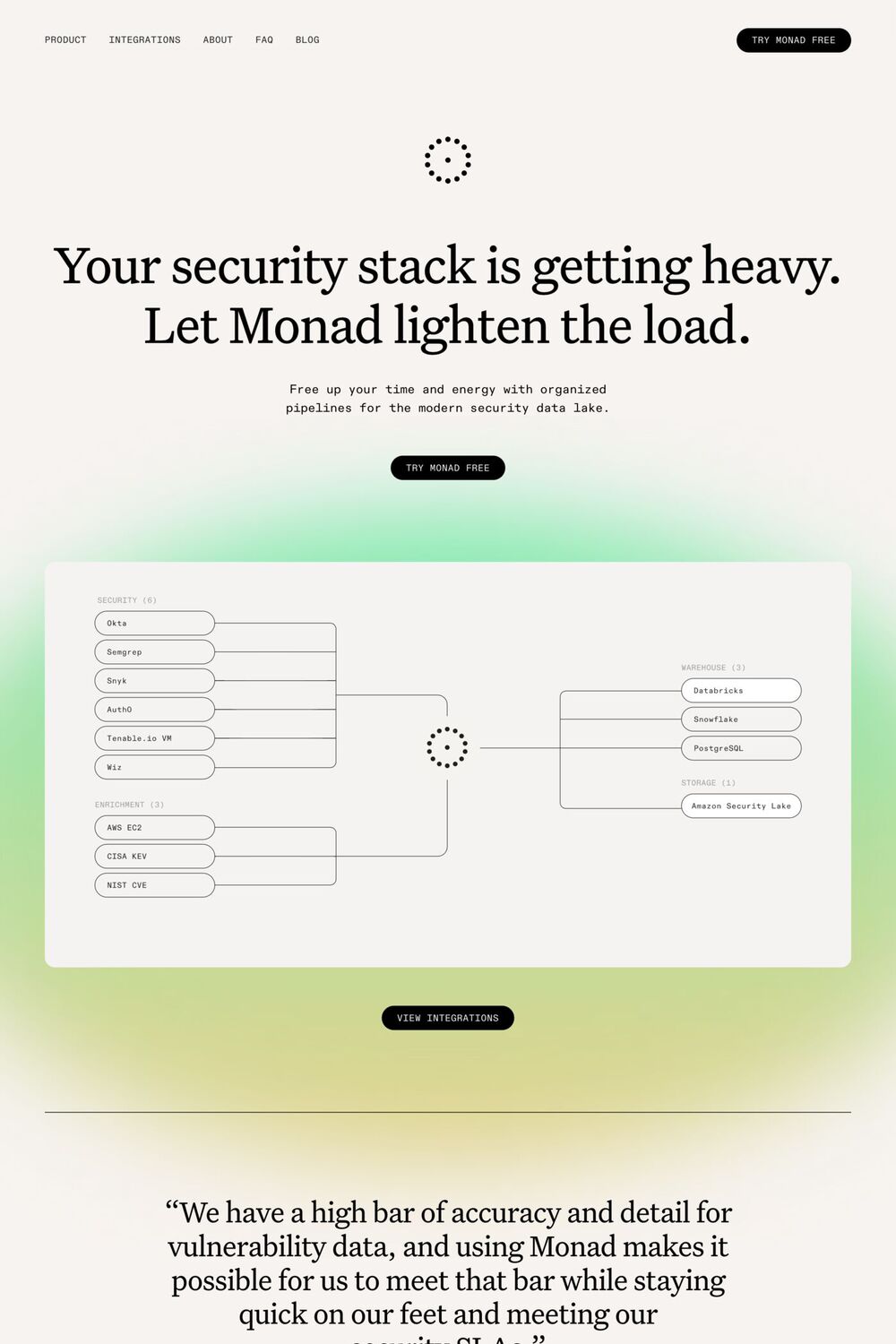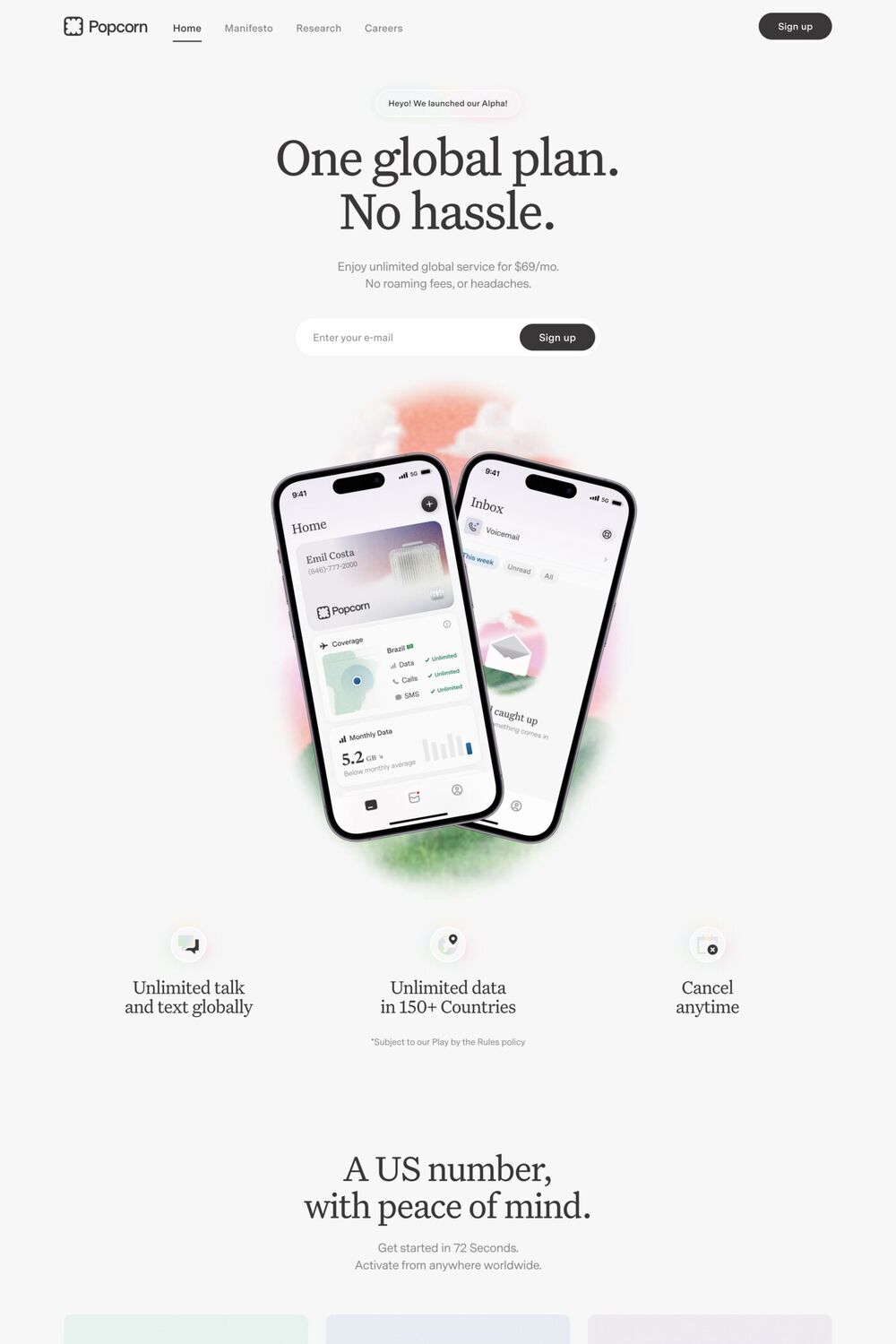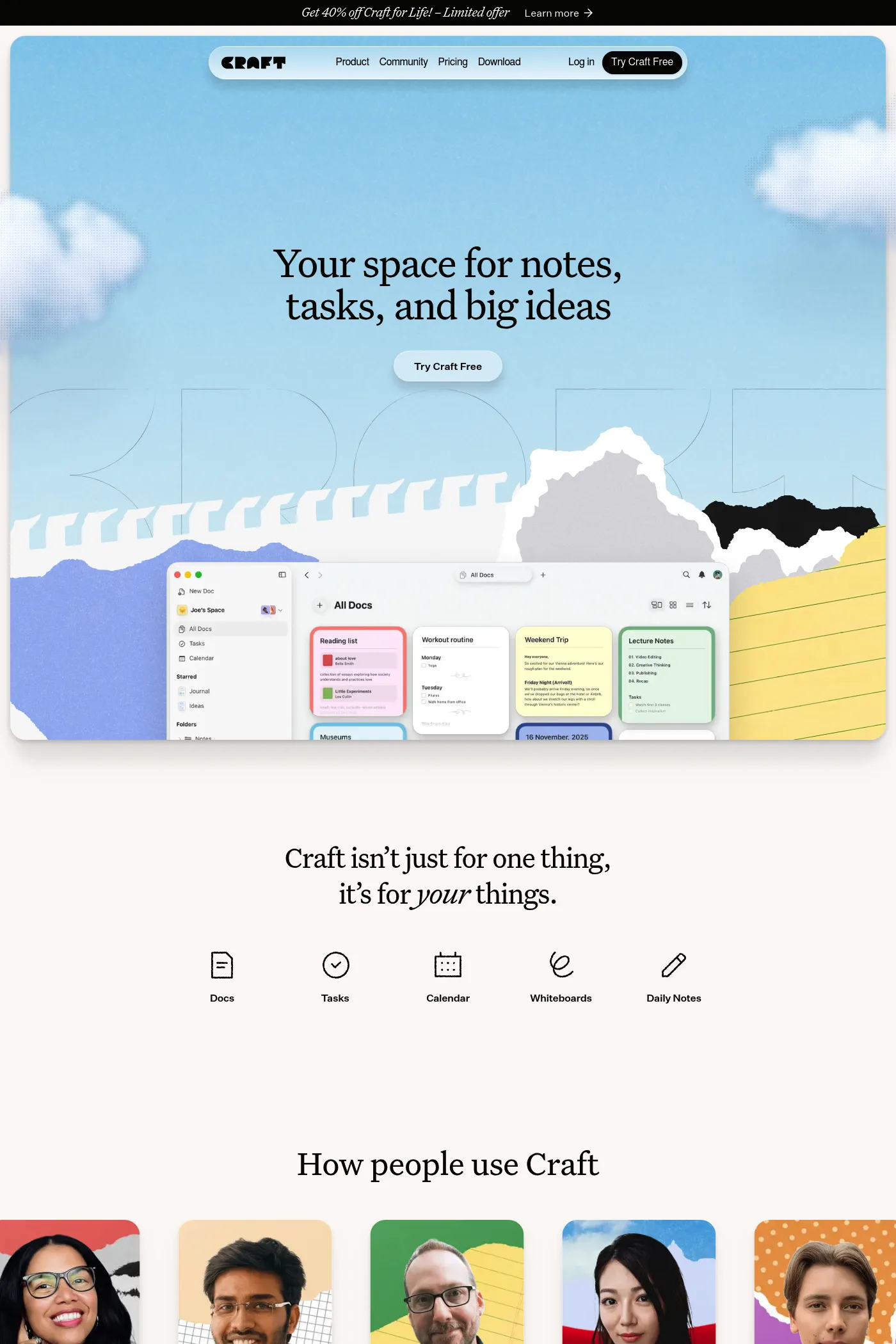
Untitled Serif is a serif typeface from Klim Type Foundry.
A1 features 3 websites using Untitled Serif, including Craft, Popcorn, and Monad. They lean towards Serif, Blurred gradients, and Texture design styles, and they’re most often built with Webflow and Next.js.